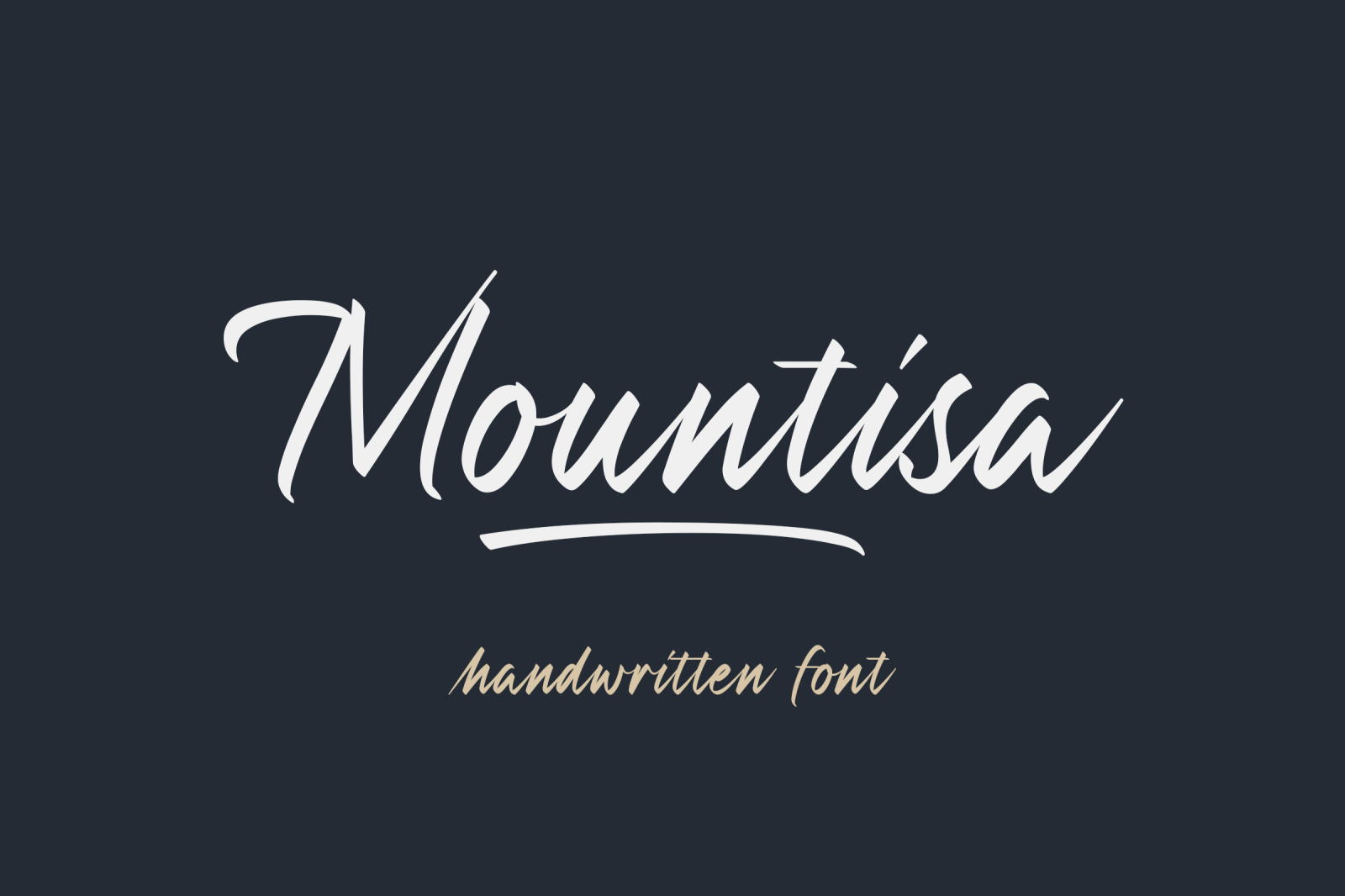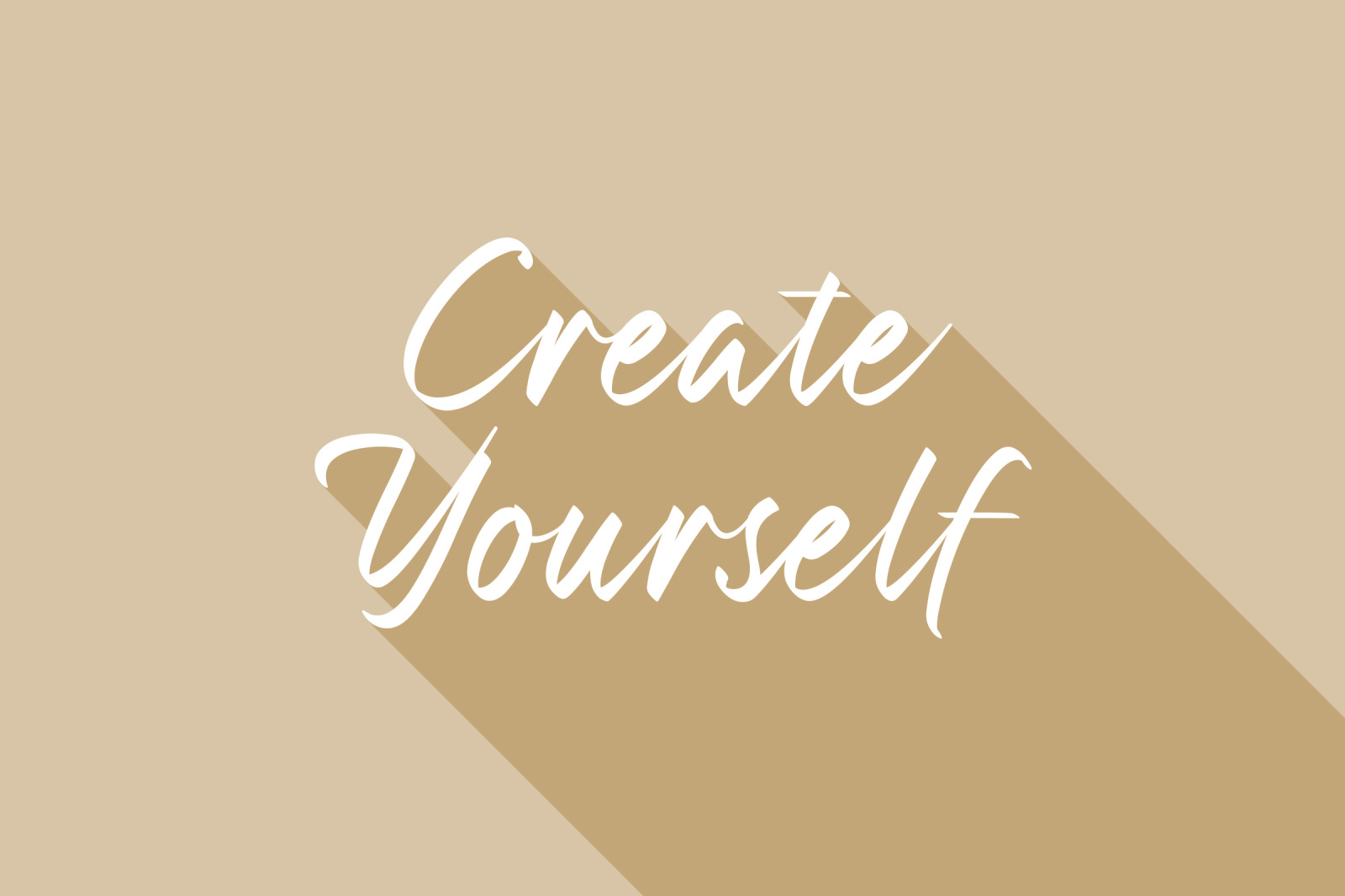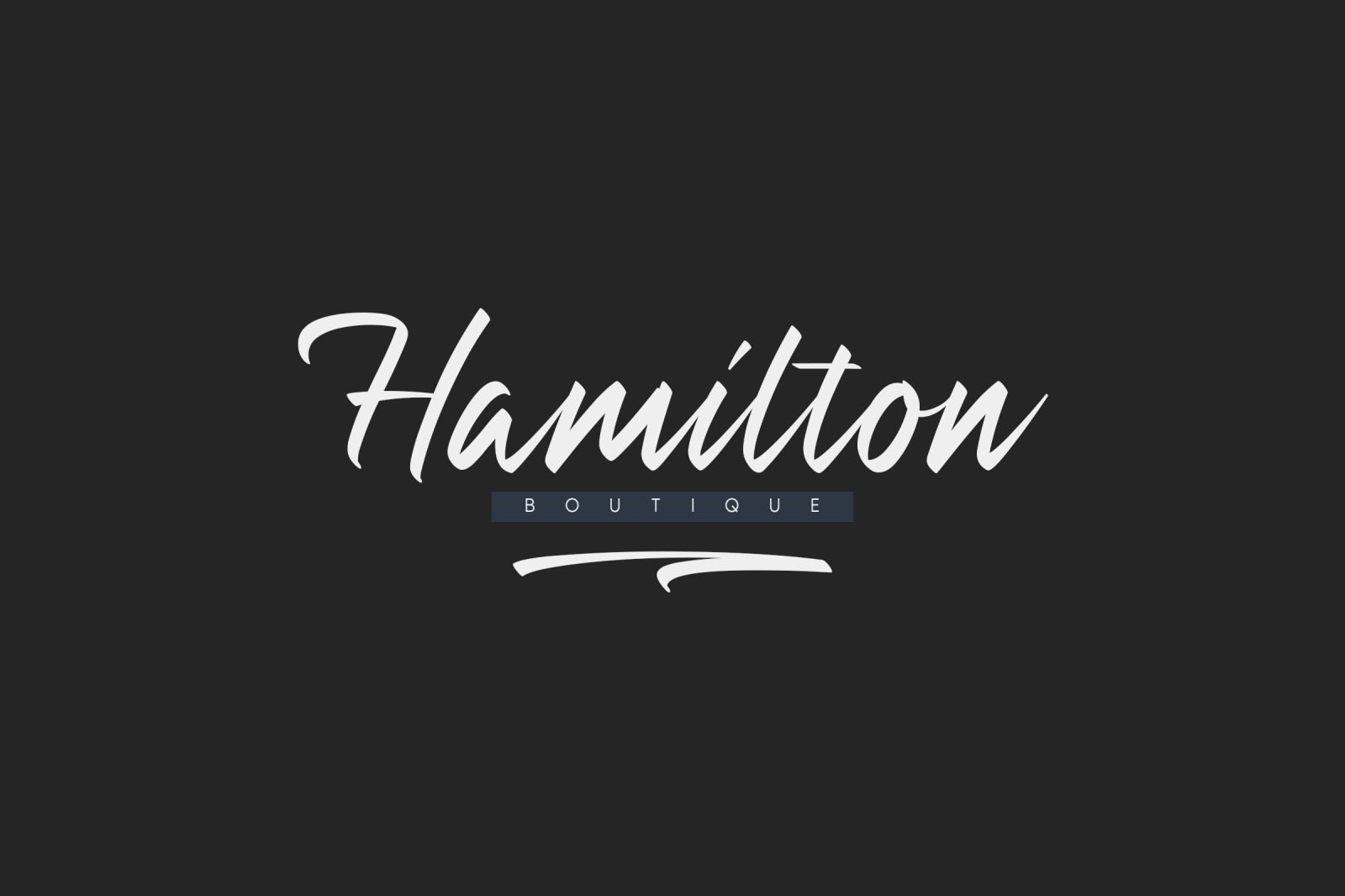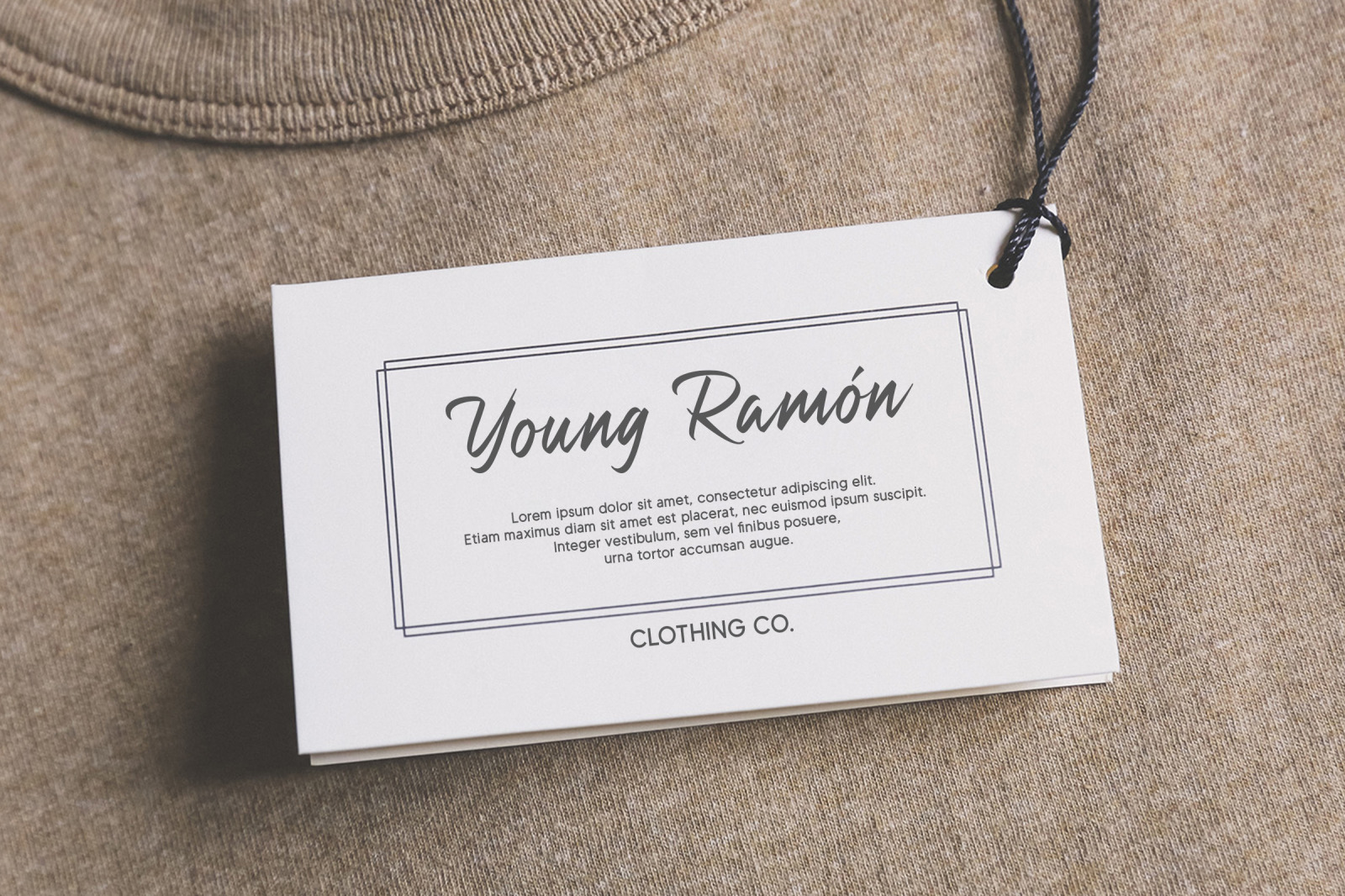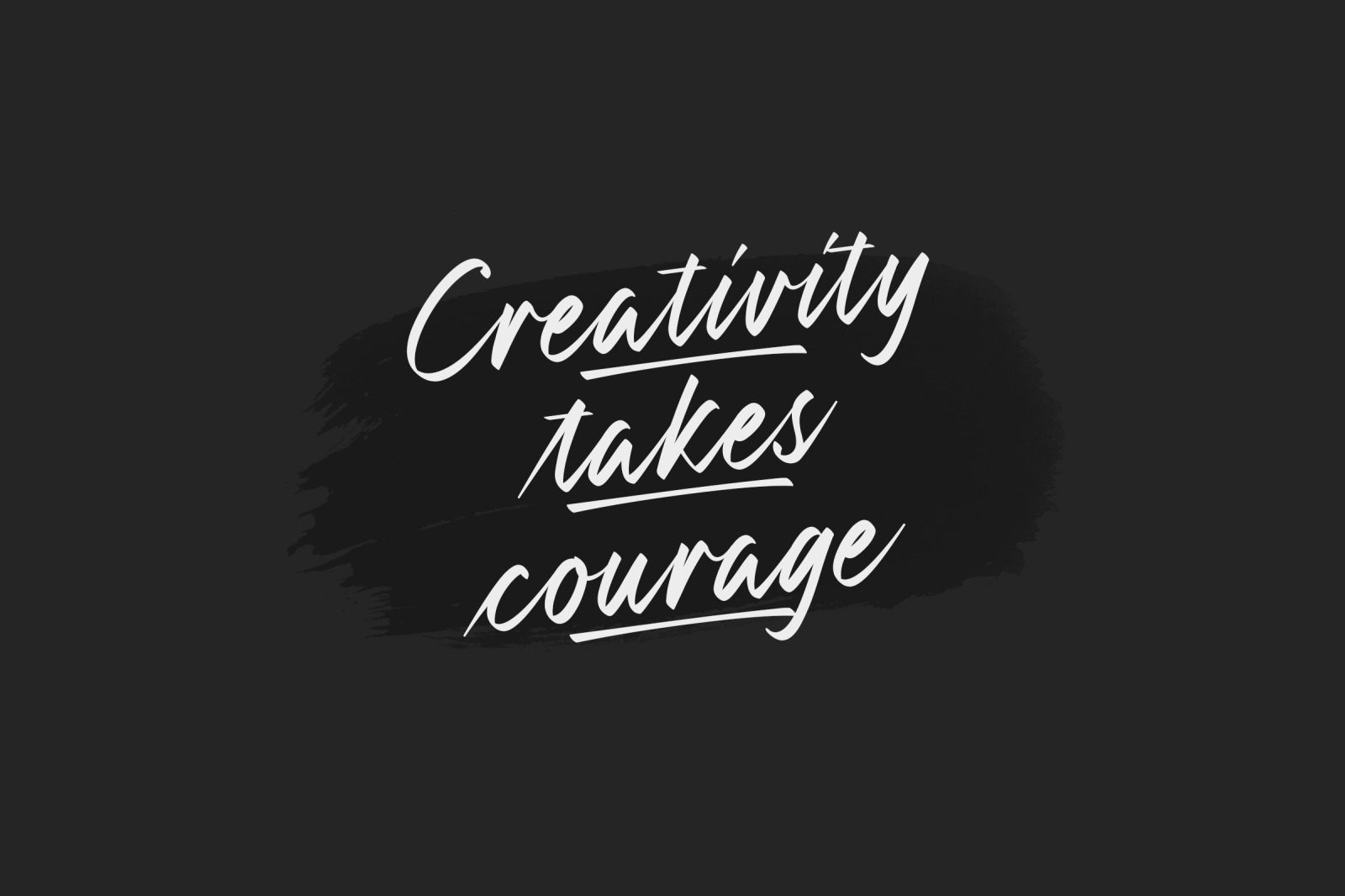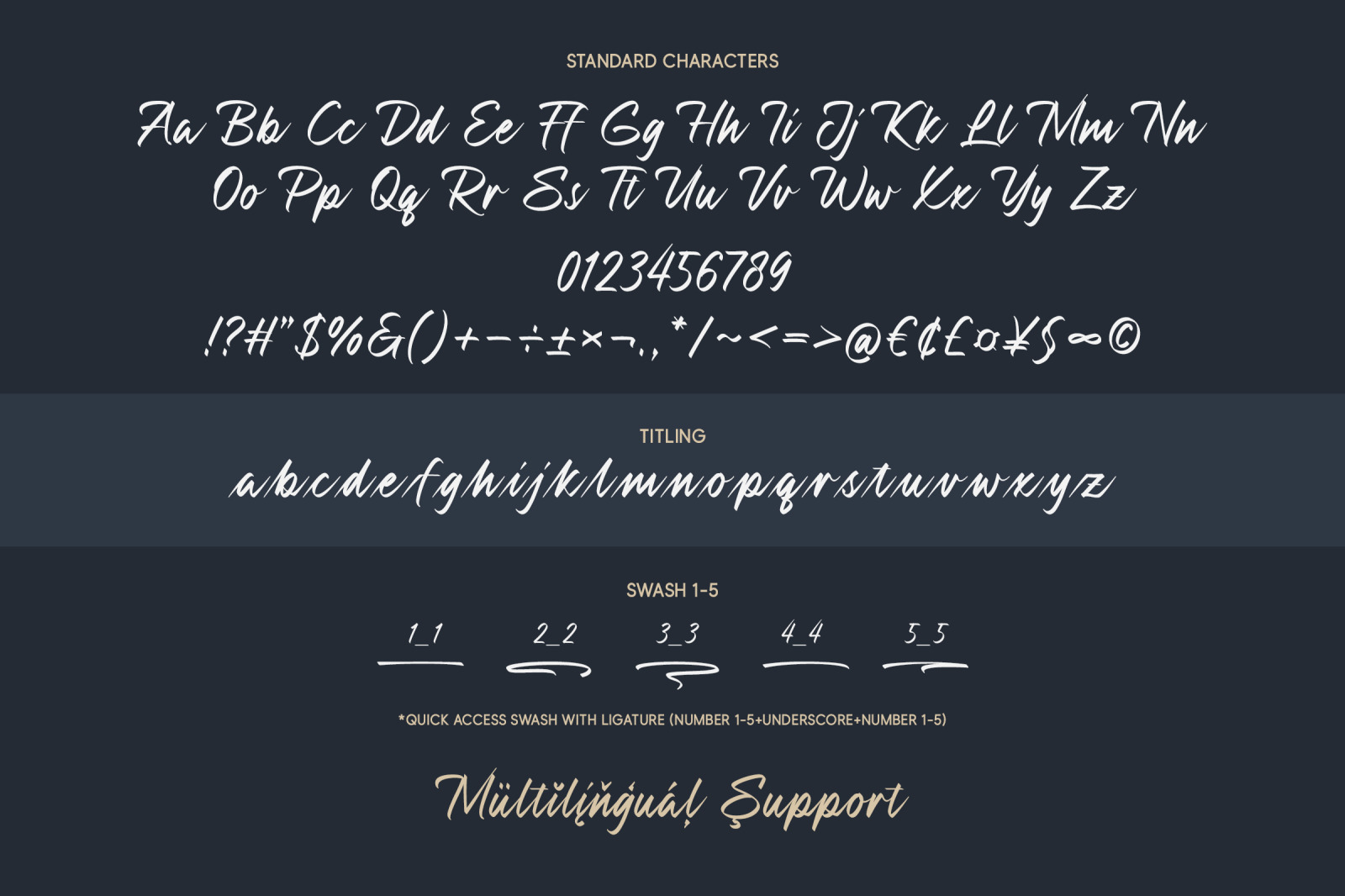
Mountisa Font
Mountisa is a script font with a dynamic and energetic style. It’s perfect for signature, stationery, photography, social media posts, product packaging, greeting cards, and every other design that needs a unique and striking font.
FEATURES
-Titiling
-Swash
-Uppercase and Lowercase letters
-Numbering and Punctuations
-Also Multilingual Support